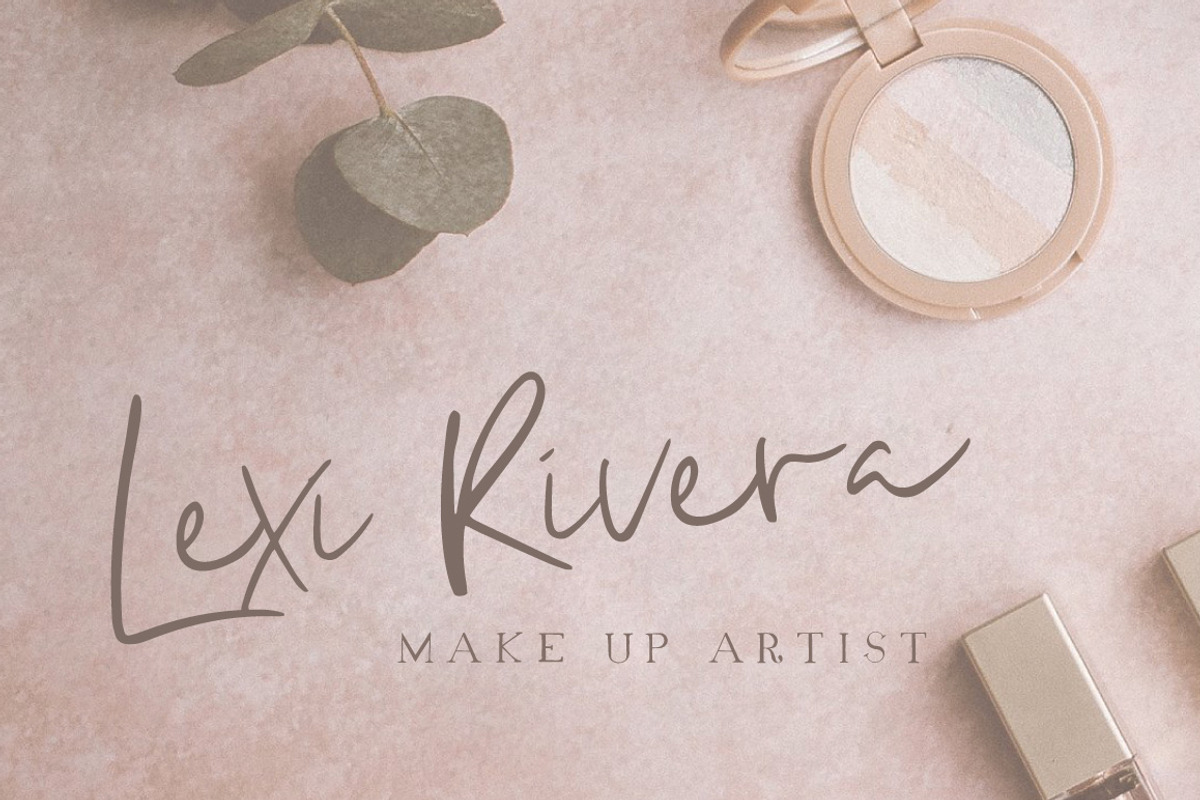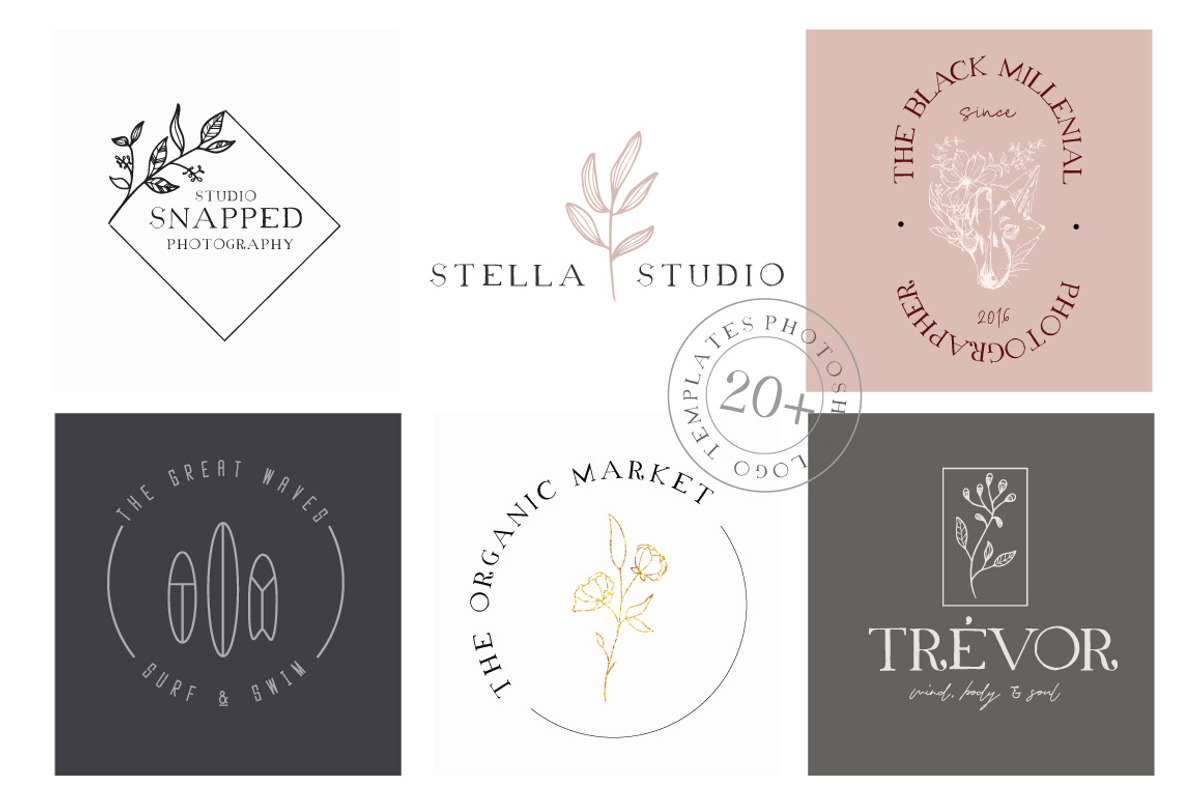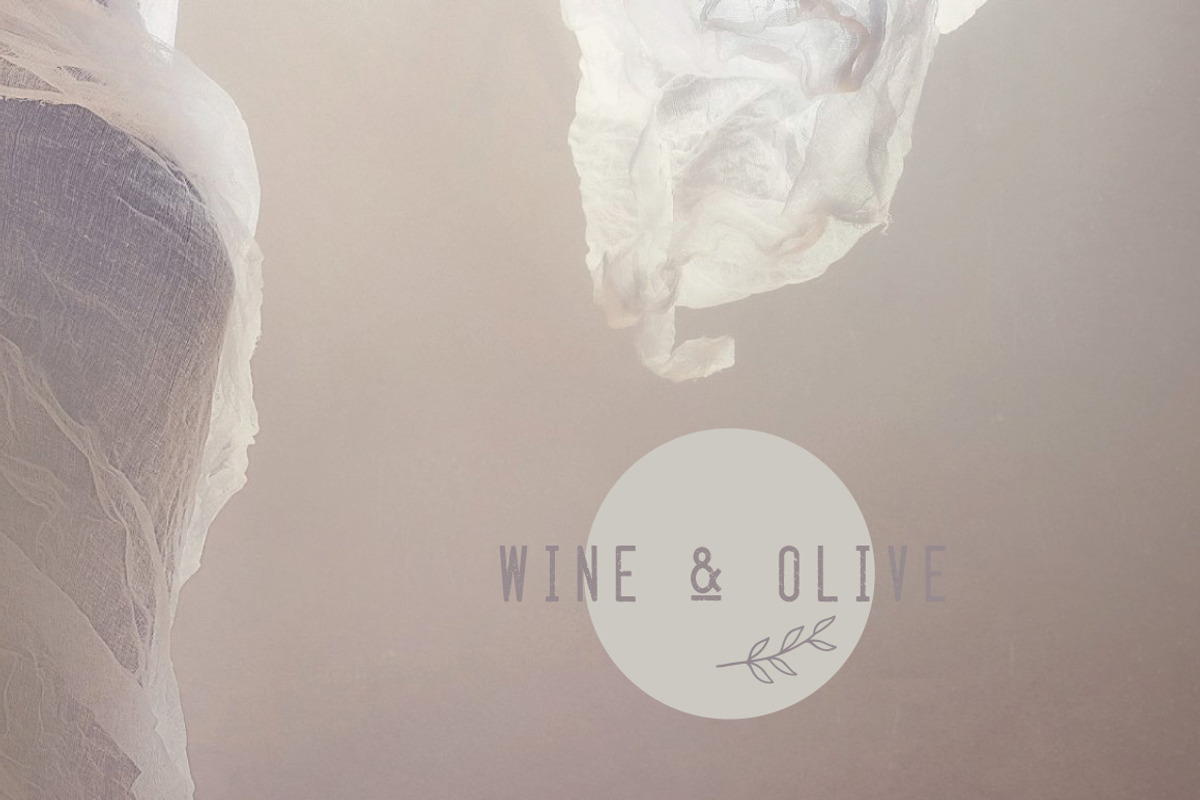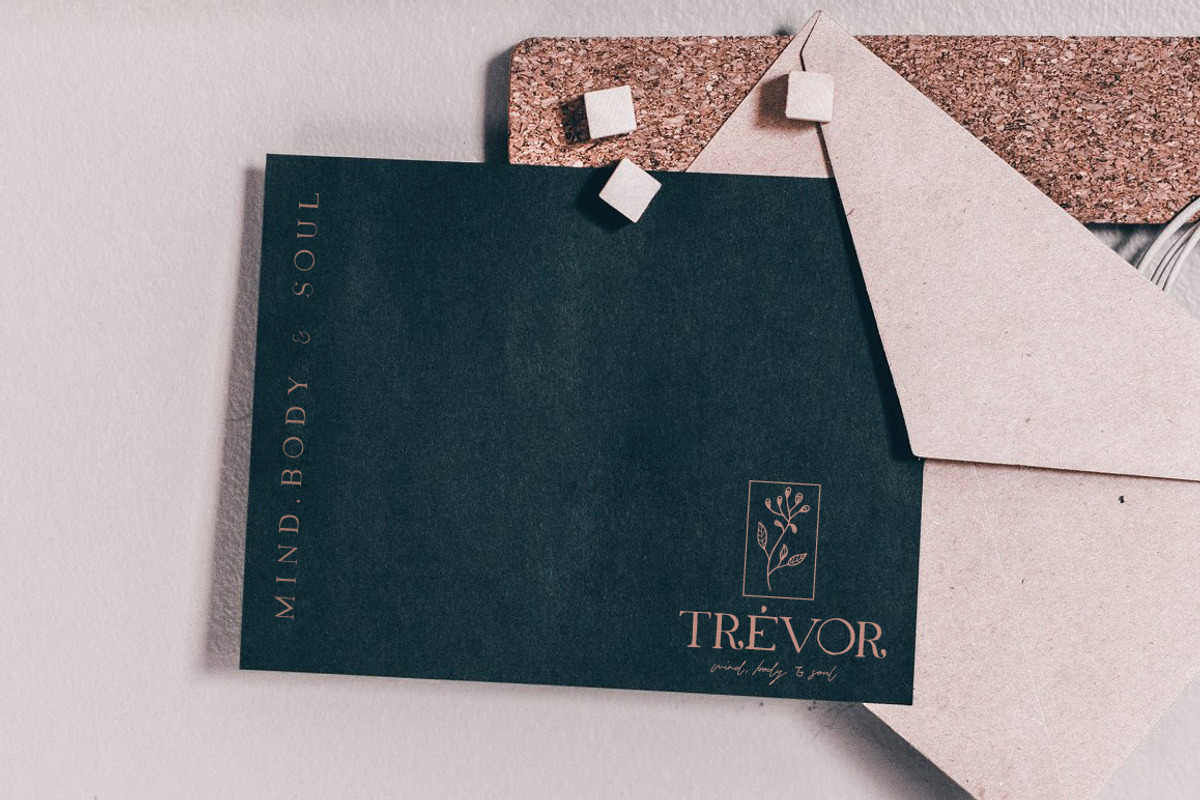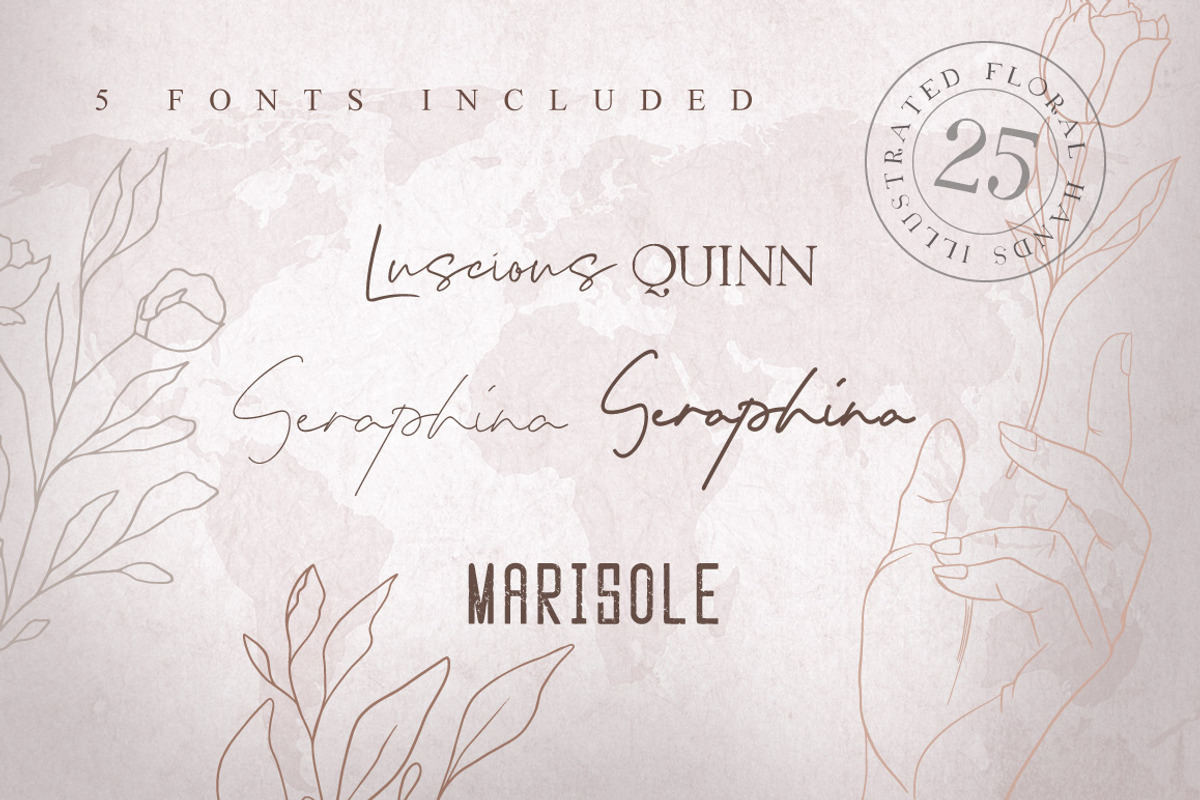
Floral + Hands Creator Kit
An elegant collection of fonts and illustrations - designed to work together in harmony, to produce a beautiful, sophisticated & feminine designs.
Also included 5 fonts such as Luscious Script, Quinn, Seraphina ( Regular&Bold ) and Marisole.
Over 20 delicate hand drawn florals are included as vector files ( Illustrator, EPS) and as individual PNG files. Easy to use.
Your creativity doesn't stop here, over 20 logo templates are also included - layered , easy to edit Photoshop Files to get you started.